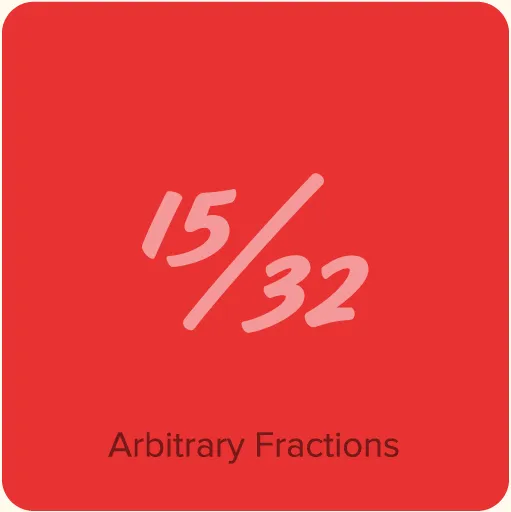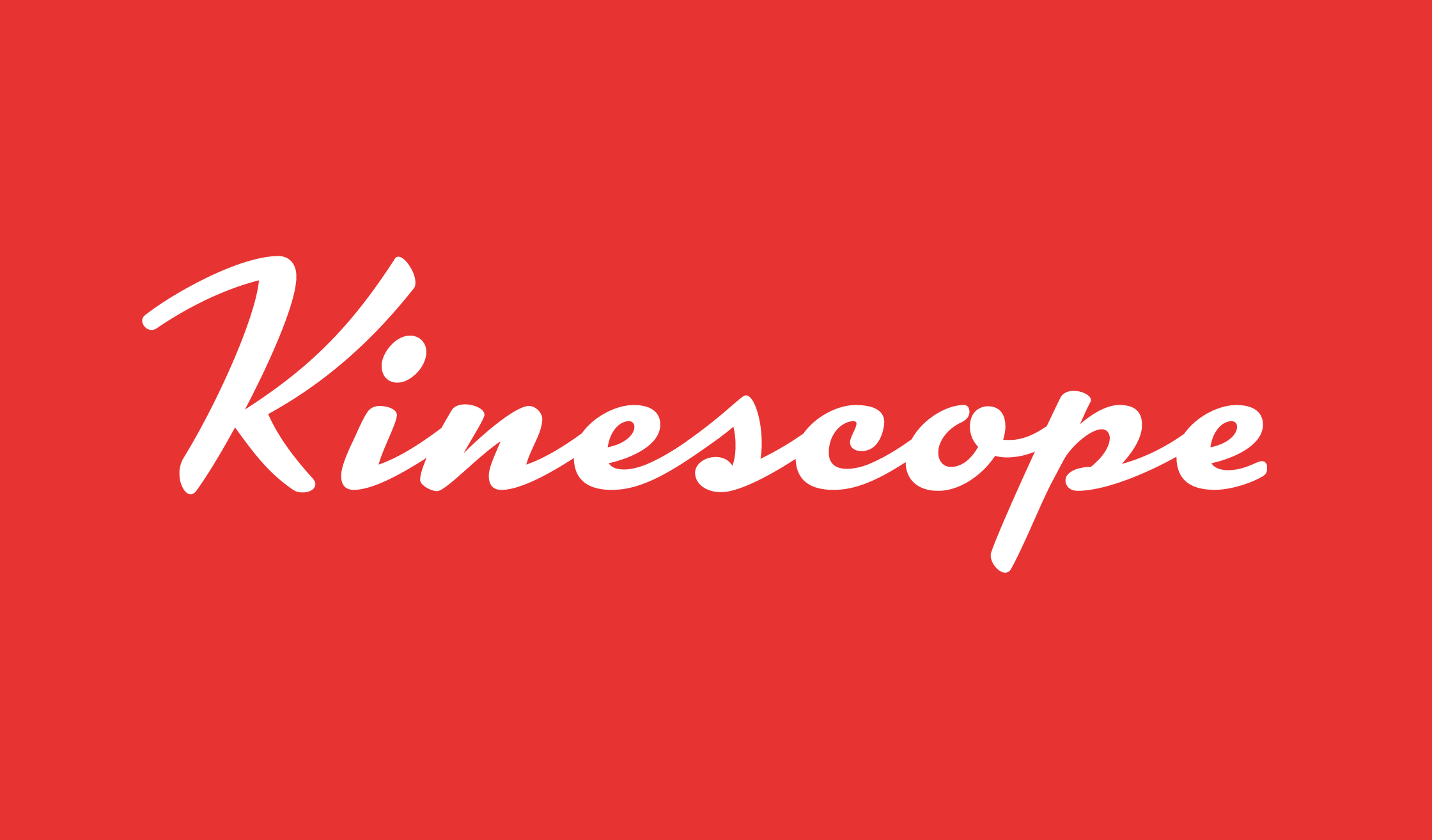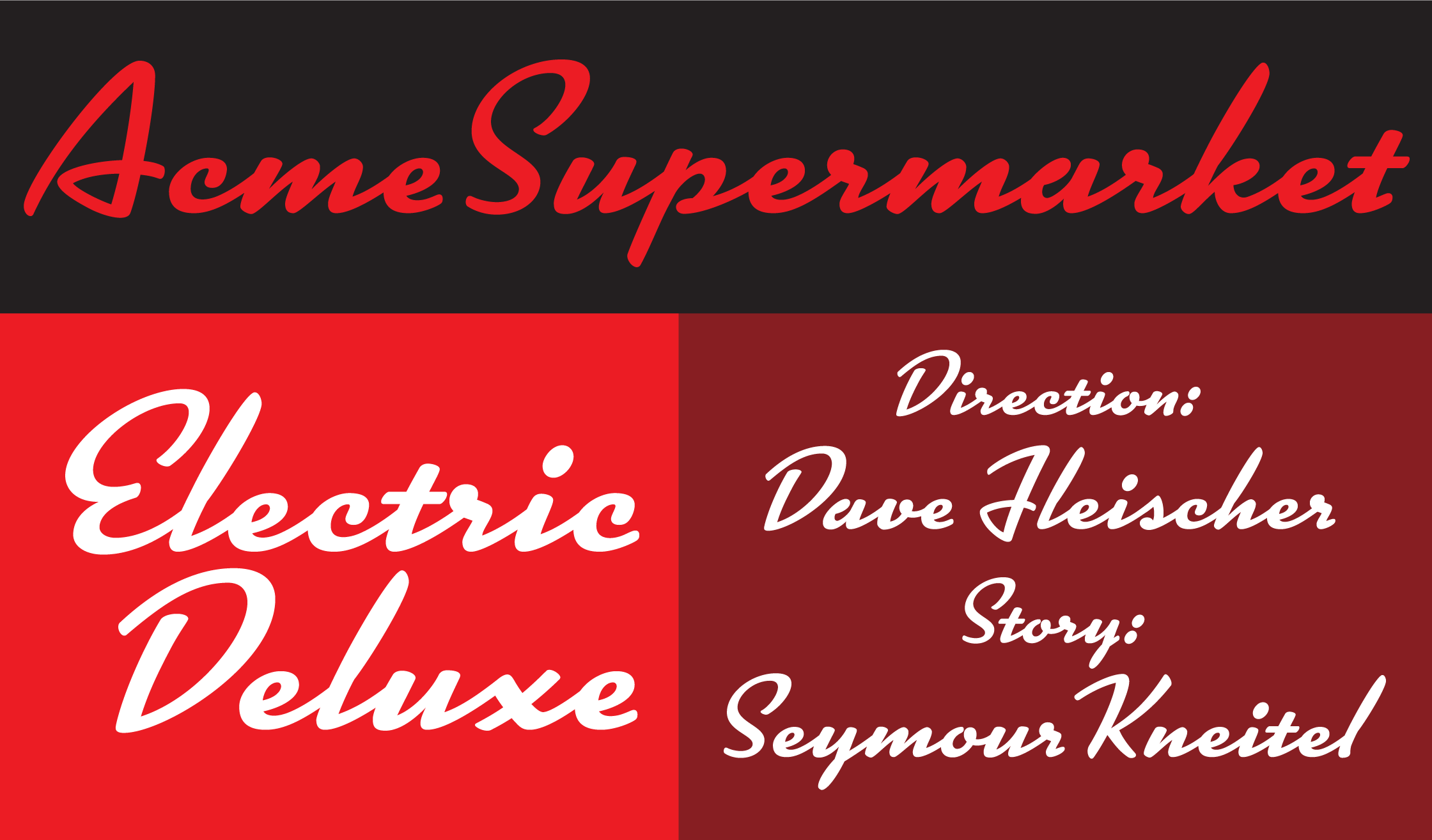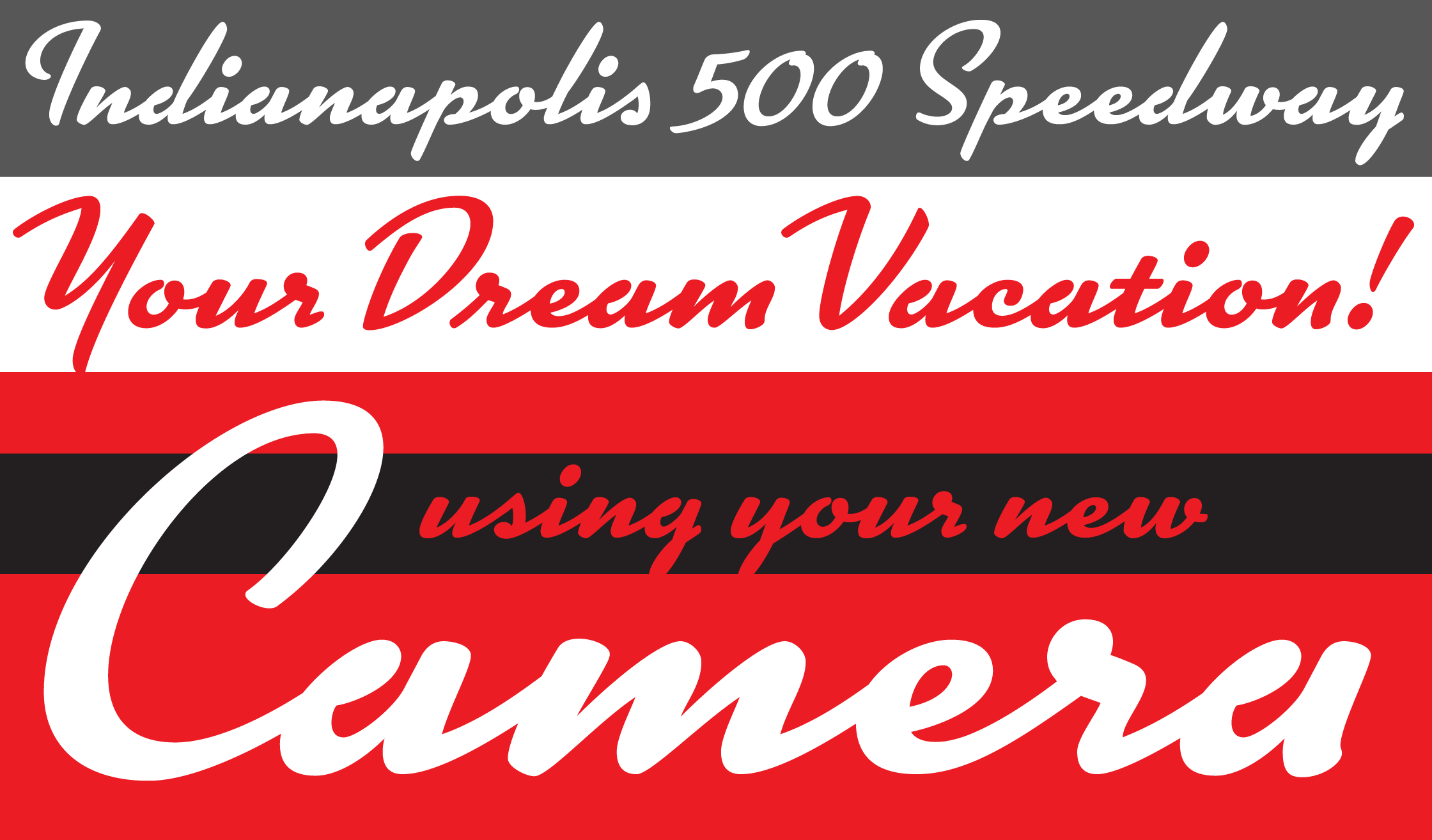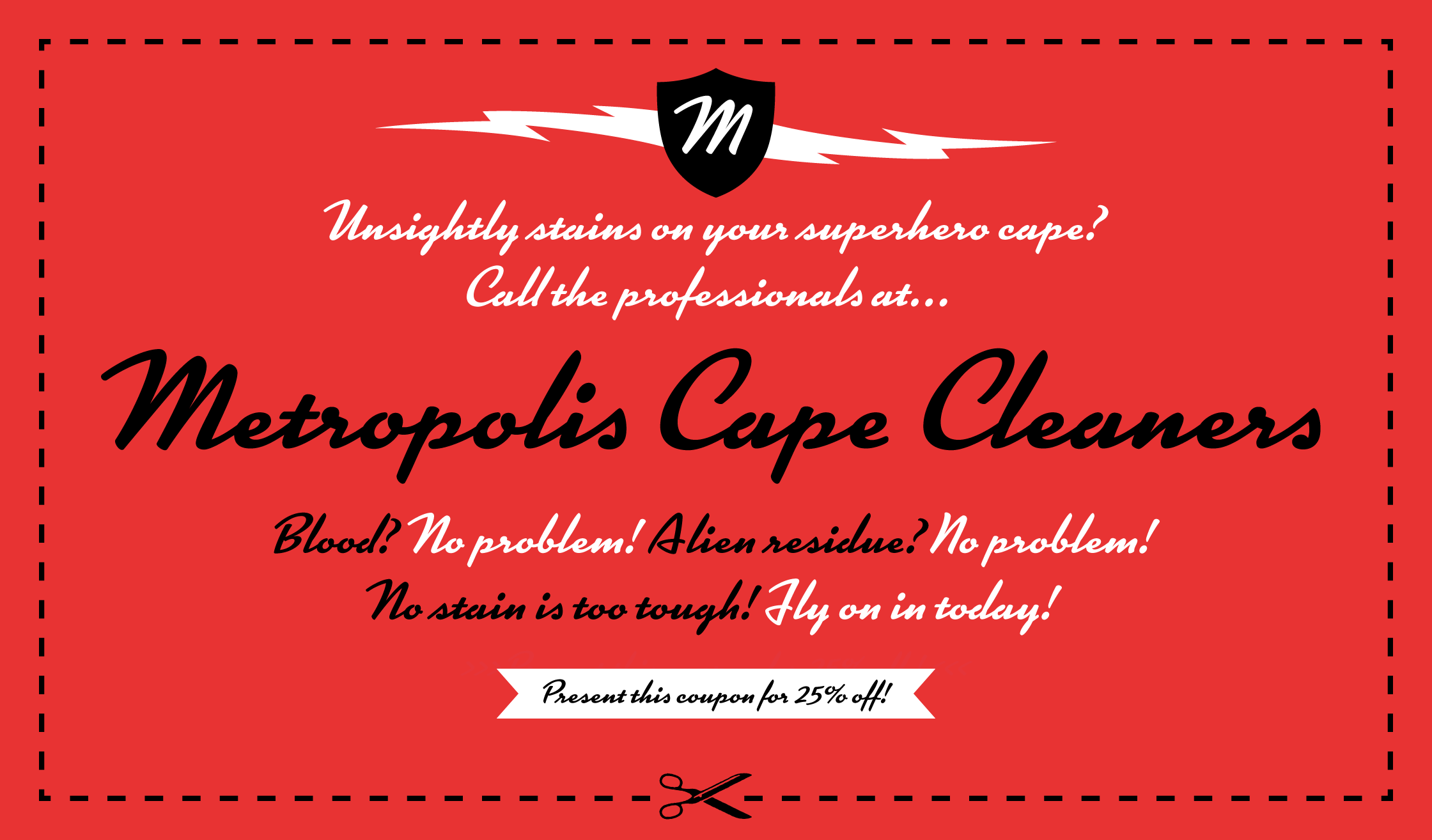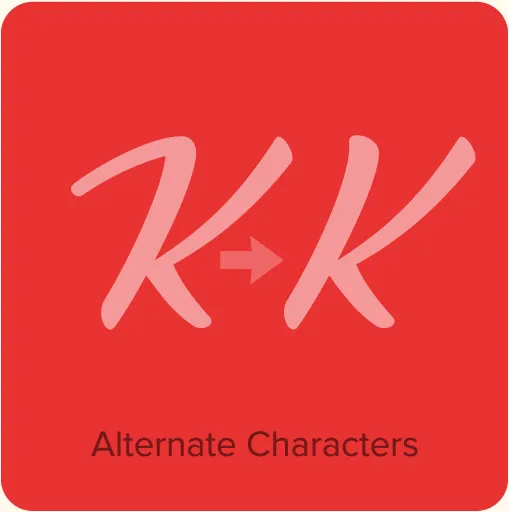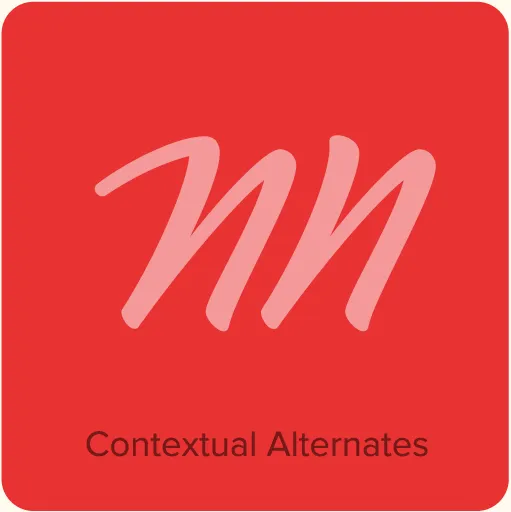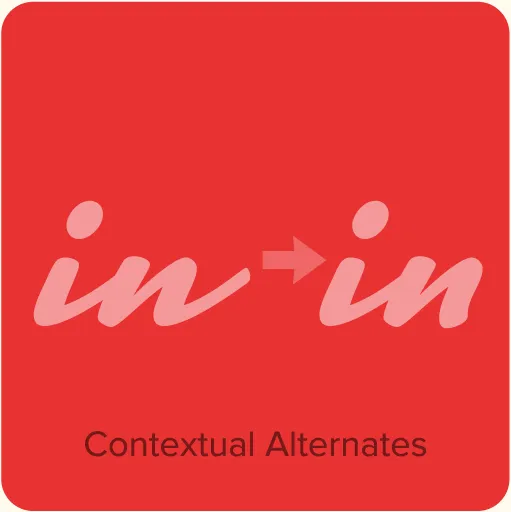
Kinescope (2007) is a dashing 1940s-style brush script, inspired by hand-lettered titles in Fleischer Brothers’ Superman cartoon series. Although I used that as a starting point, there was much room for interpretation, and many characters had to be invented. Kinescope uses some OpenType magic to mimic hand lettering, automatically choosing the best character shape based on its position in a word. Kinescope was designed along side of and released with another Fleischer Brothers-inspired design, Snicker.
A wisecracking jackalope on a freight vexed by Moz’s bequest.
Kinoscope Features
- Ligatures.
- Kinescope features advanced OpenType magic to automatically choose the most aesthetically pleasing letter shapes as you type.*
- Automatic arbitrary fractions.*
- Extended language support for most Latin-based Western and Central European languages.